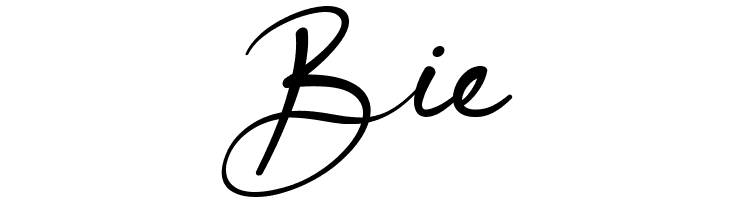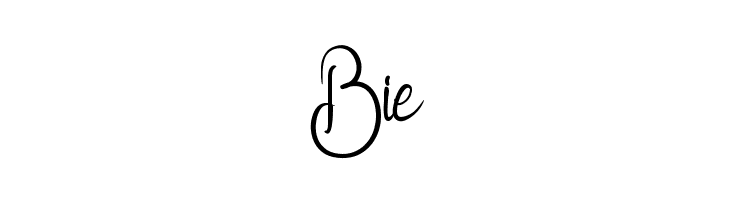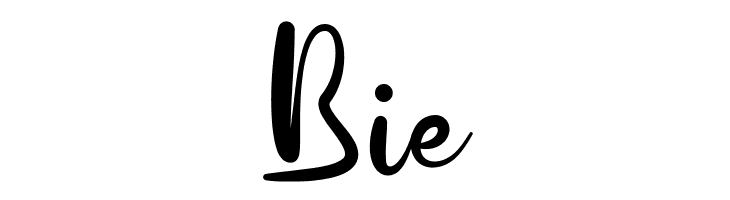
A playful, hand-drawn outline font with rounded, whimsical characters.
A bold, elegant script font with fluid, connected letterforms.
A whimsical and elegant script font with flowing, interconnected letters.
A bold, handwritten font with dynamic and expressive strokes.
A flowing, cursive font with elegant loops and a handwritten style.
An elegant, flowing script font with graceful curves and decorative flourishes.
An elegant, flowing script font with interconnected letters and artistic flair.
A graceful script font with flowing, cursive letterforms and elegant curves.
An elegant, flowing script font with ornate uppercase and smooth lowercase letters.
A modern, playful handwritten font with dynamic strokes.